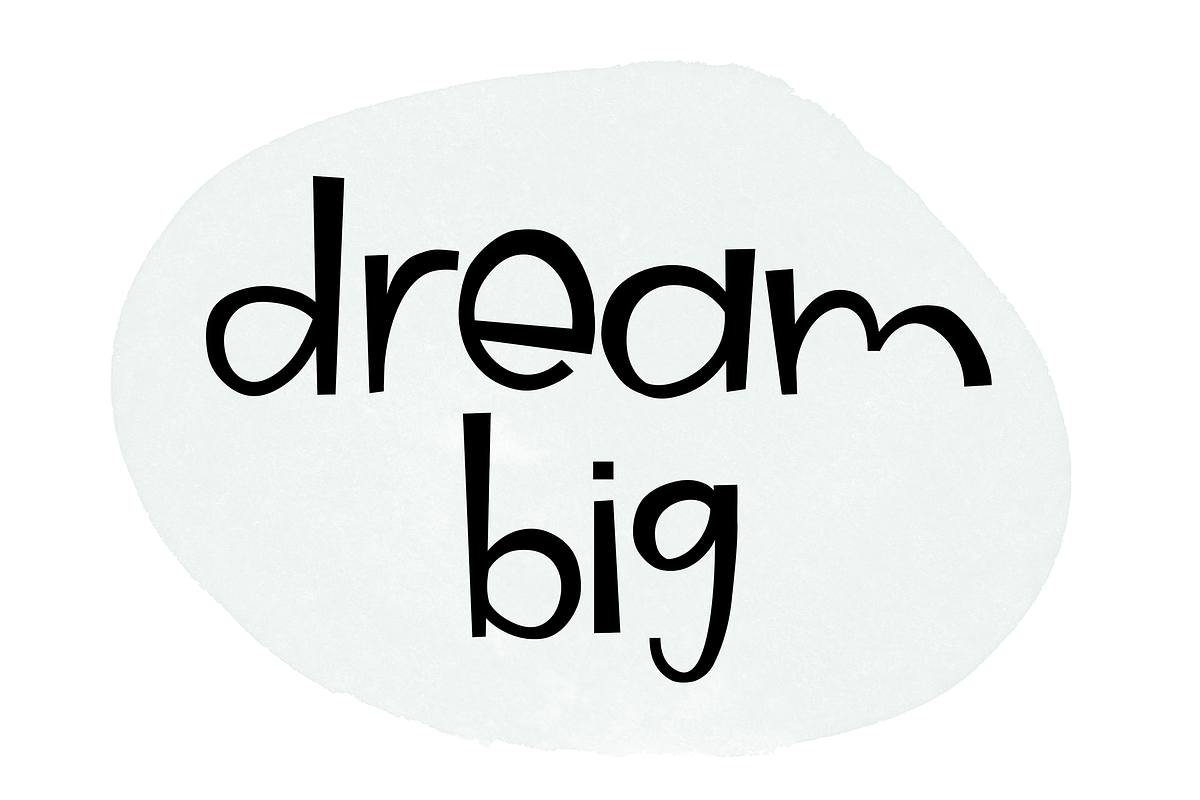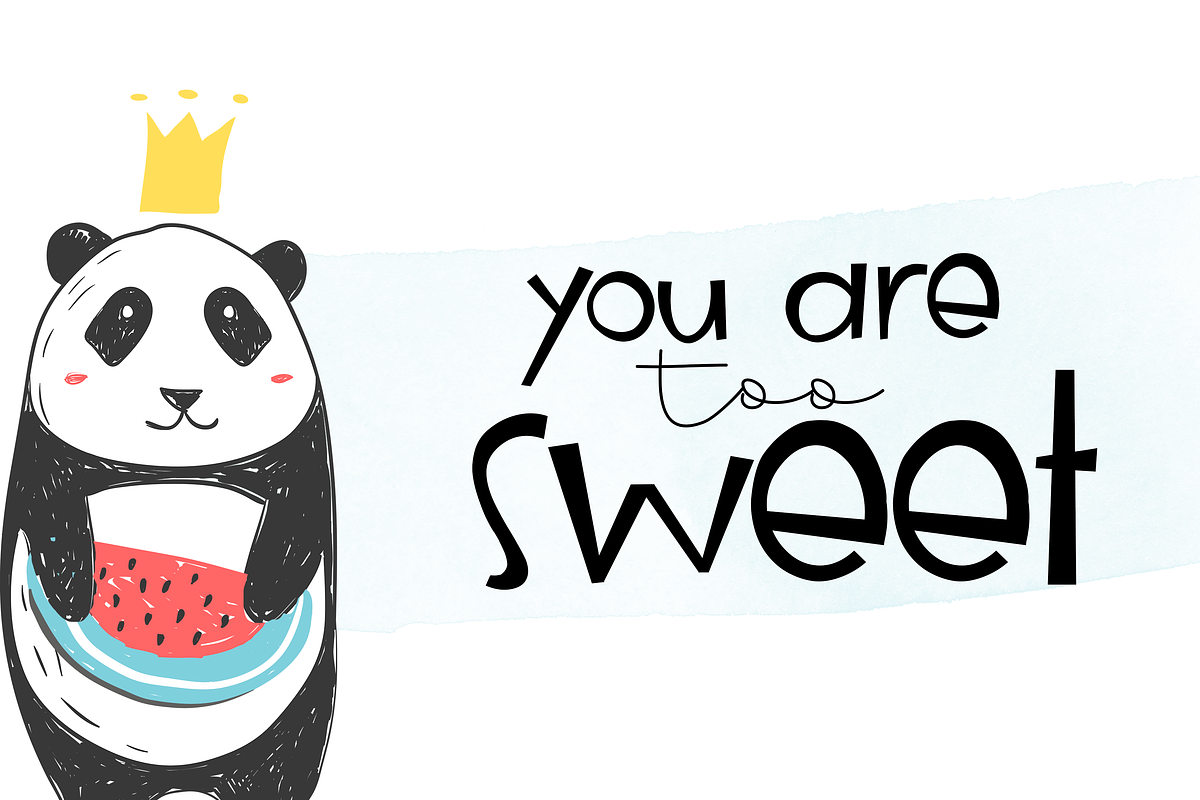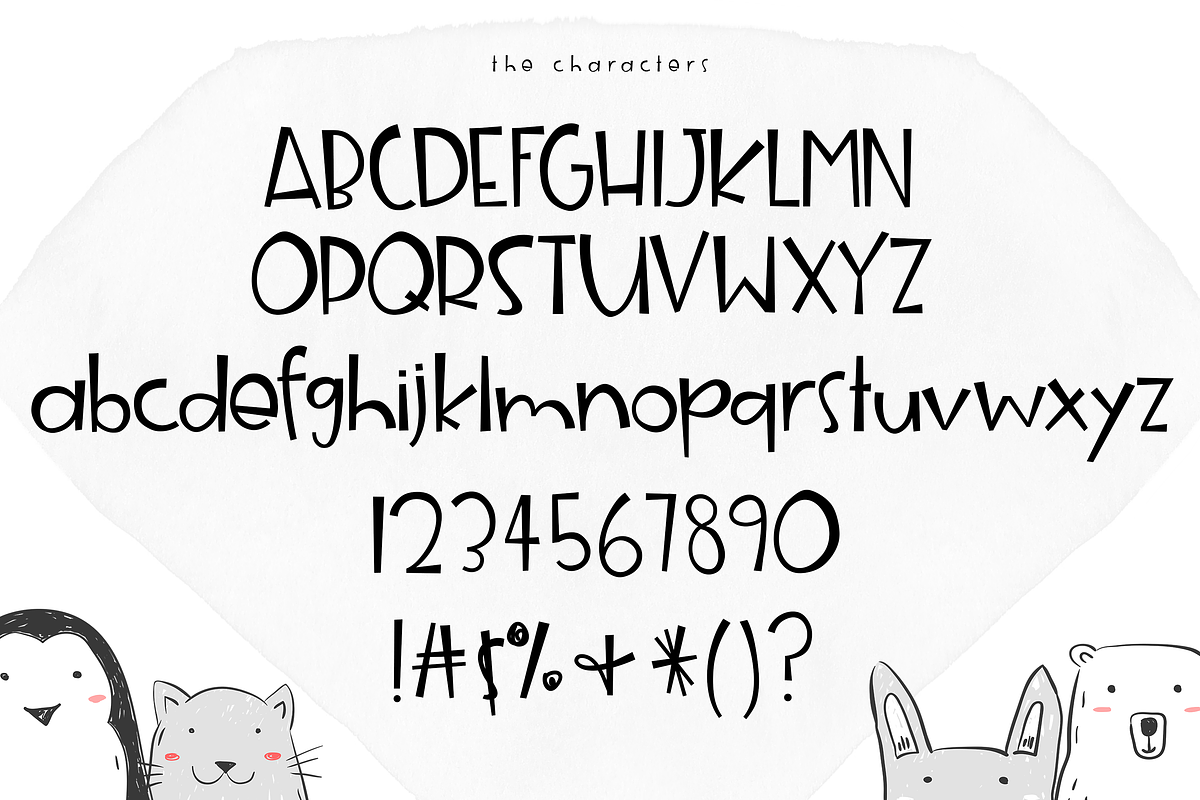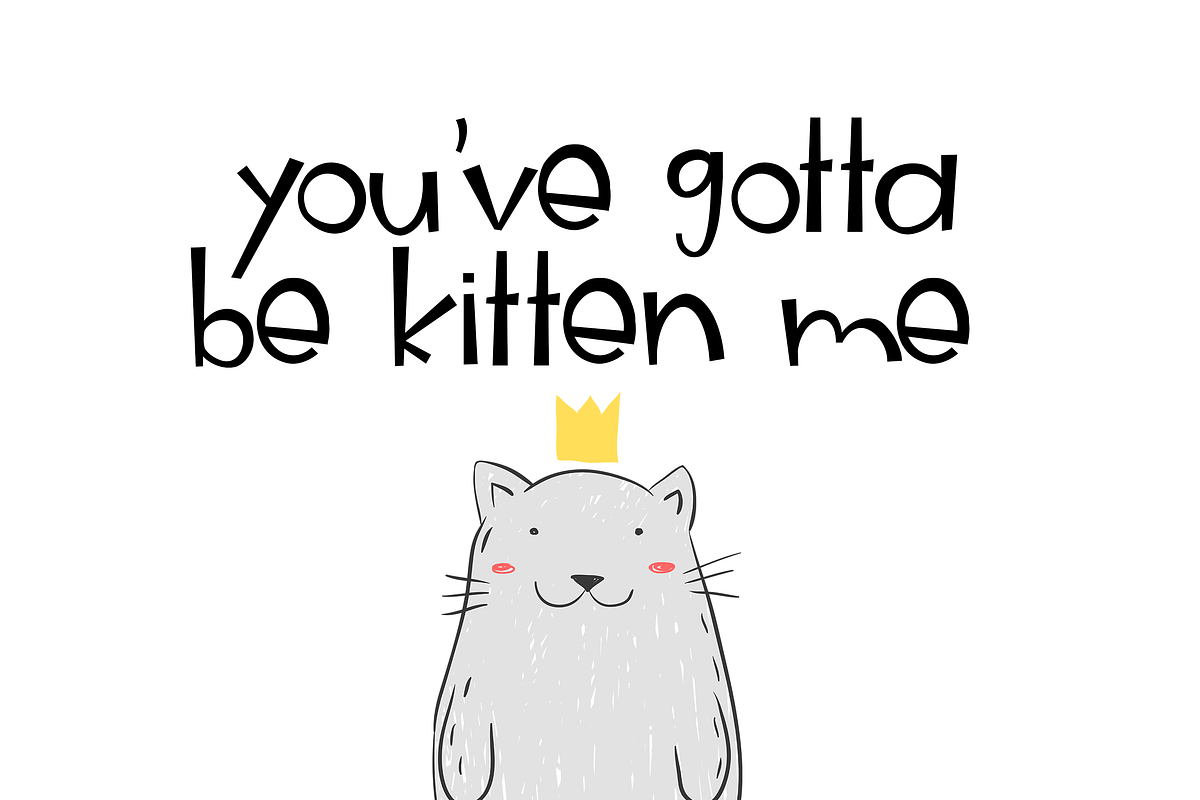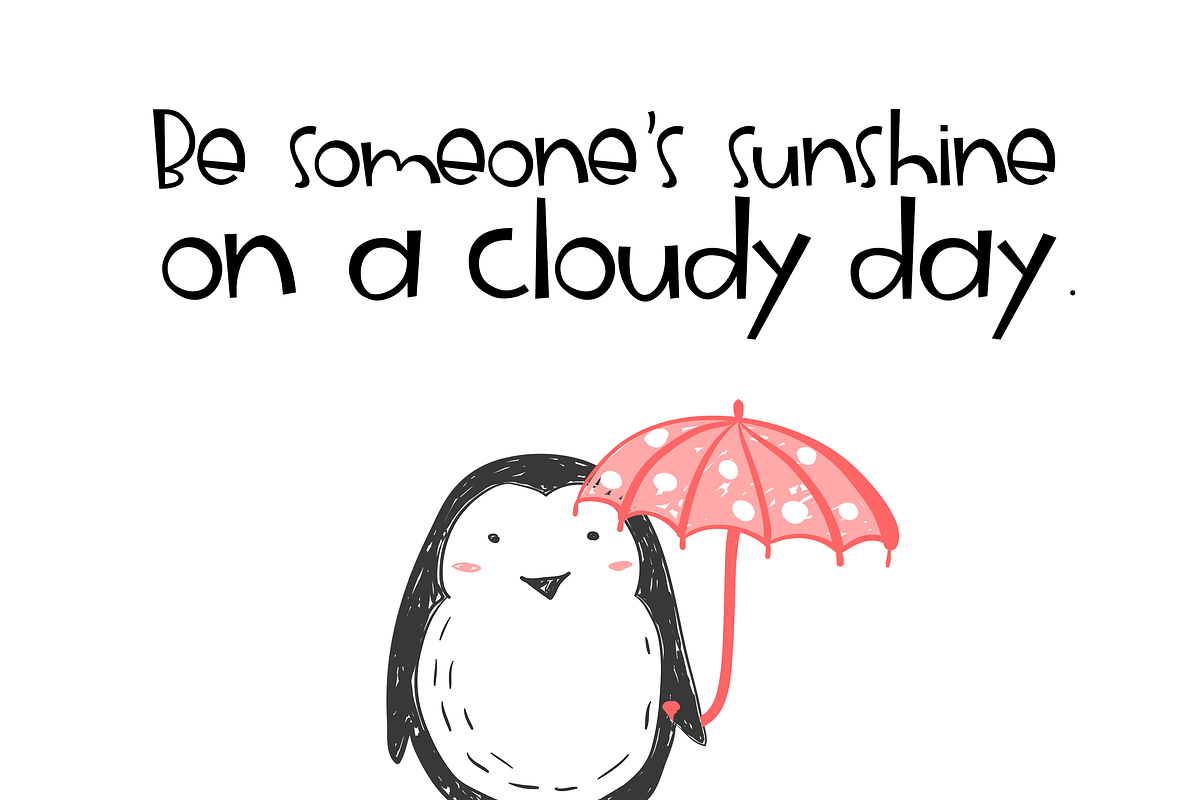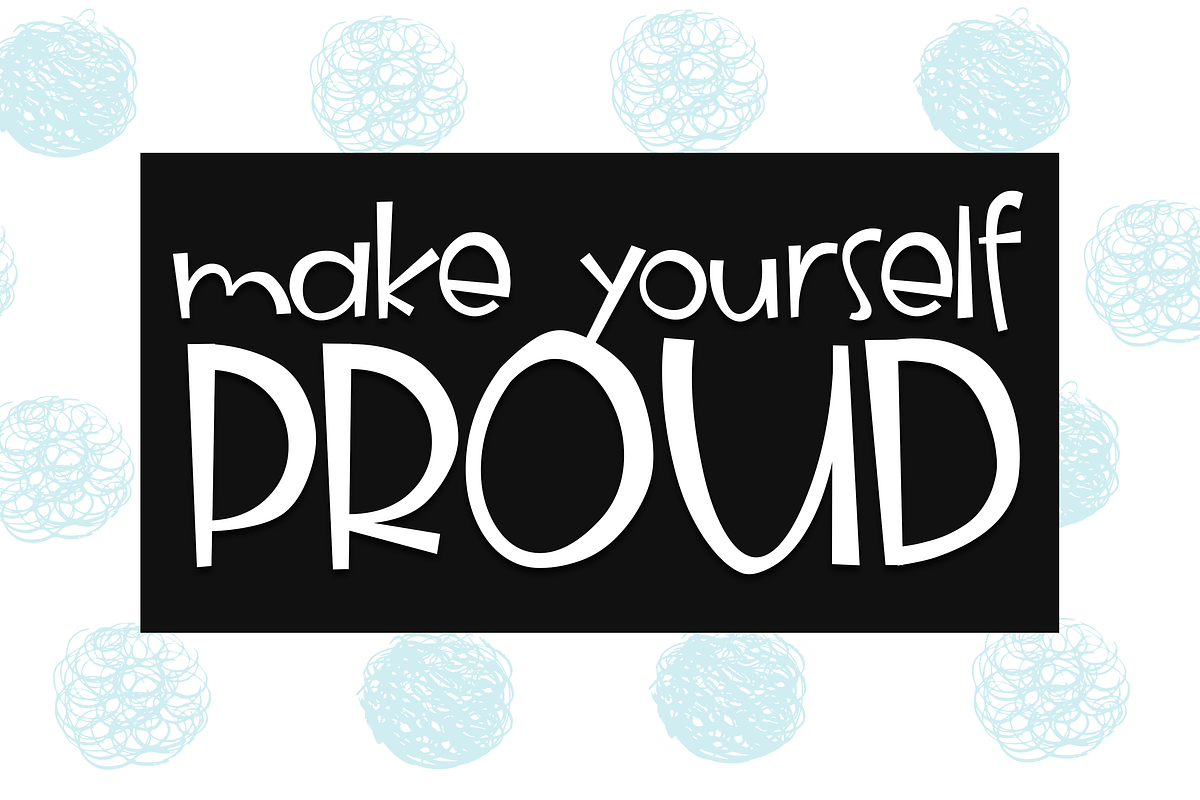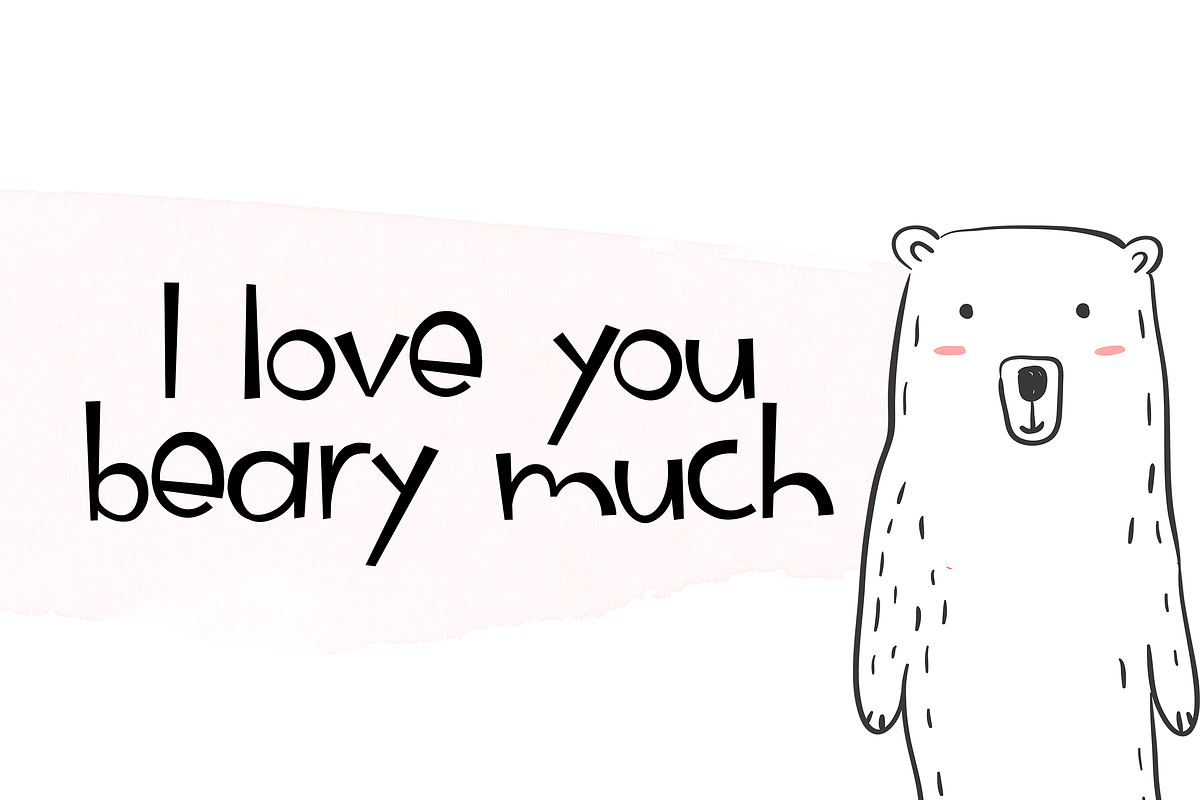
Animal Crackers - A Fun Font
Animal Crackers is a fun and bold handwritten font.
This font is perfect for quotes, headings, blogs, logos, invitations and more!